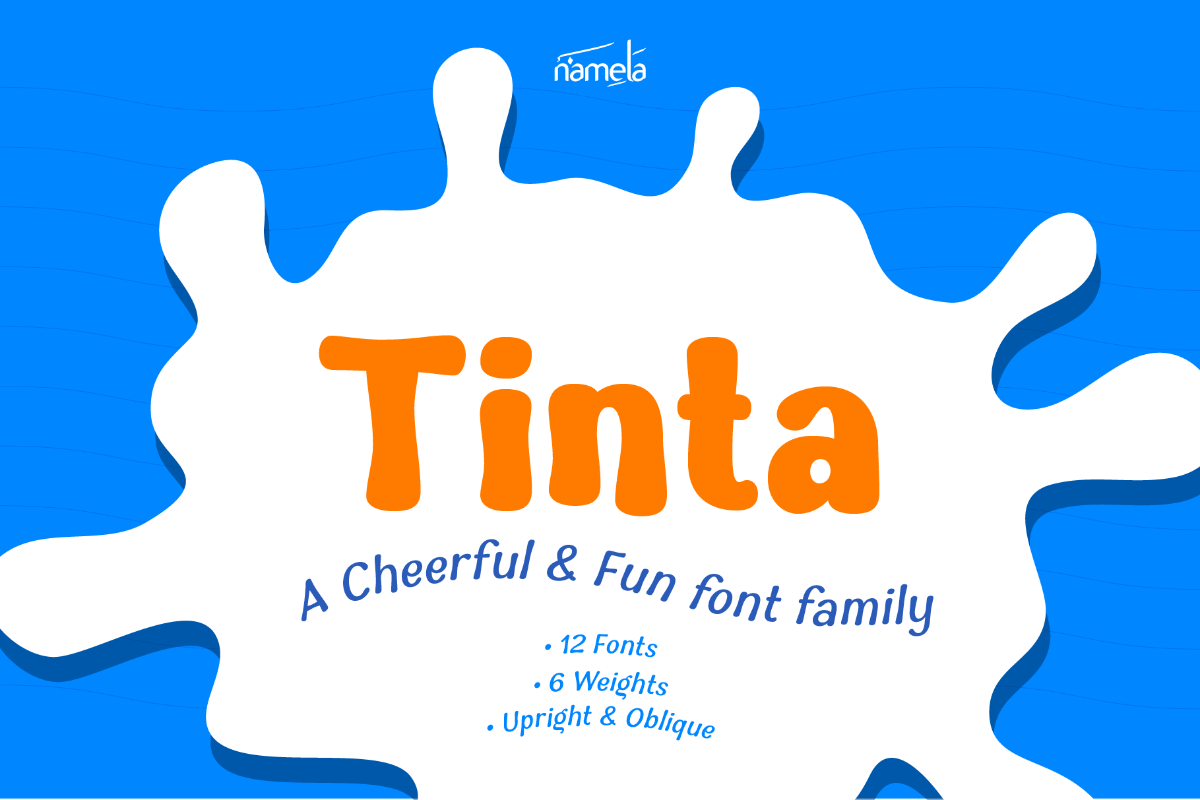
Tinta Regular
Tinta Font - A Fun and Cheerful Typeface for Kids' Branding, ePub Every typeface has a story behind its strokes, and Tinta wears its story on its sleeve. Named after the Spanish and Portuguese word for “ink,” this cheerful, playful handwritten font is inspired by the natural flow of ink on paper—dynamic, expressive, and full of life. Designed for kids’ branding, ePub publishing, and creative projects that need energy and personality, Tinta delivers a visual warmth that draws audiences in.